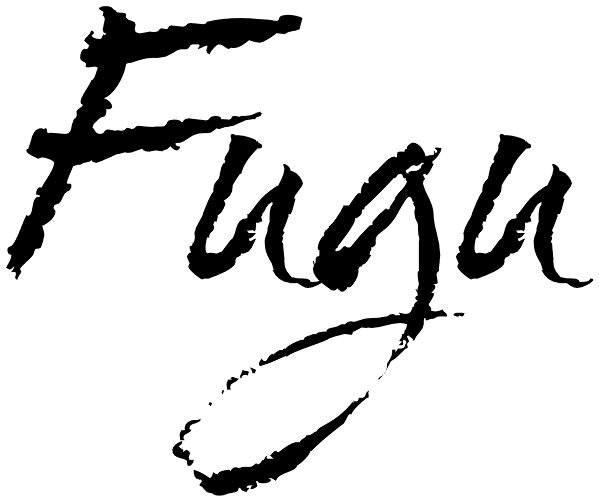
Fugu
When Baka and Baka Too did very well commercially (Baka was named the Best Cursive Rough Script in 2005), I shied away from doing rough, handwritten scripts in fear as being seen as a one-trick-pony. A few years have passed and some early sumi-e...